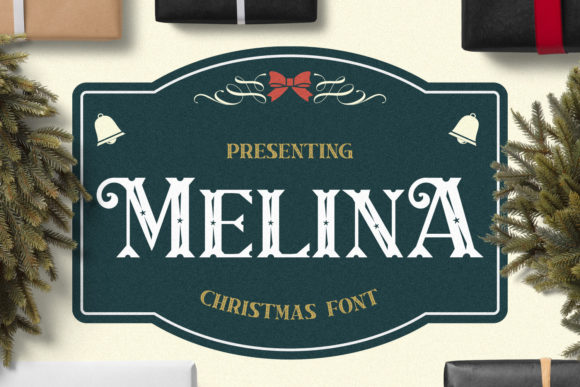
Melina Font
Behold Melina Font, the crowning jewel of display fonts, a creation of Runsell Graphic, designed to make your designs shine with a touch of Christmasy charm and playful sophistication. Buckle up for a typographic adventure that will ignite your creativity.
Introducing Melina Font, a delightful dance of characters that exudes warmth and vibrancy. This font is not just a collection of letters; it's a gateway to a world of captivating designs. Whether you're crafting an art magazine, fashion catalog, or whimsical greeting cards, Melina Font will transform your words into captivating visual masterpieces.
Picture this: your art magazine adorned with Melina Font's inviting curves and cheerful strokes. Each letter dances across the page, inviting readers into a world of creativity and imagination. The Christmasy vibe woven into the font's DNA adds a touch of festive magic, making your magazine a true collector's item.
But Melina Font's allure extends far beyond art magazines. Its versatility knows no bounds. Unleash your inner designer and use it to create eye-catching fashion catalogs that pop with personality. Let Melina Font elevate your brand's image and make your products stand out from the crowd.
And if you're looking to add a dash of whimsical charm to greeting cards, invitations, or social media posts, Melina Font has got you covered. Its playful nature will infuse your messages with a touch of joy and lightheartedness, making them impossible to resist.
The beauty of Melina Font lies in its ability to transform the ordinary into the extraordinary. With its cool, fun, and friendly demeanor, it breathes life into your designs, making them stand out in a sea of mediocrity. Confidence, you ask? Melina Font oozes confidence, empowering you to embrace your creativity and let your designs shine like never before.
So why settle for ordinary fonts when you can create masterpieces with Melina Font? Experience the magic of typography and watch as your designs reach new heights of elegance and sophistication. Let Melina Font be your creative companion, igniting your imagination and leaving a lasting impression on your audience.